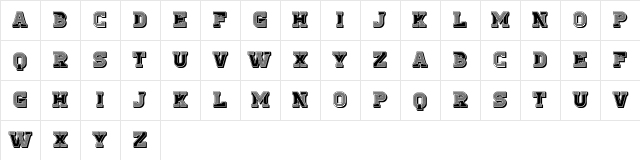
Antiqua Regular
Antiqua Family
Design Context for Antiqua
Antiqua is a composed and adaptable typeface that performs quietly and consistently across a wide range of design contexts.